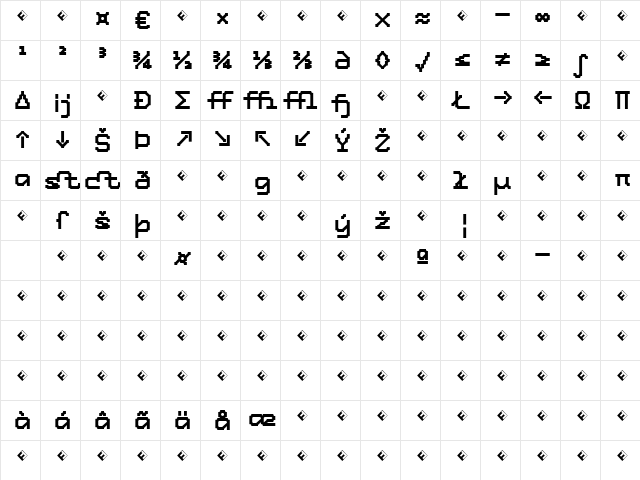
Tronic-MediumExpert Regular
| Foundry | Hyun Cho, Sung Min Choi; published by FontShop International for the FontFont Library |
| Designer | Hyun Cho, Sung Min Choi |
Design Context for Tronic-MediumExpert Typeface
Tronic-MediumExpert is a composed and adaptable typeface that performs quietly and consistently across a wide range of design contexts.